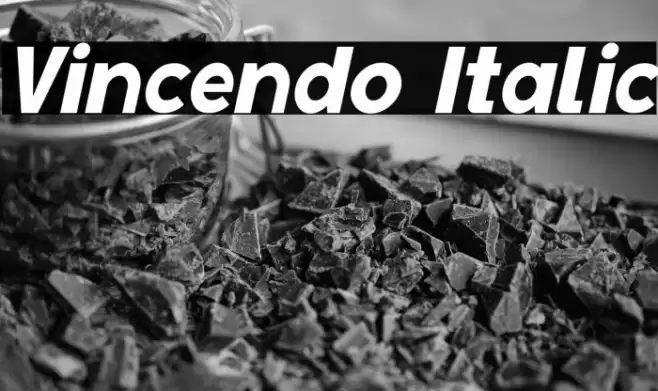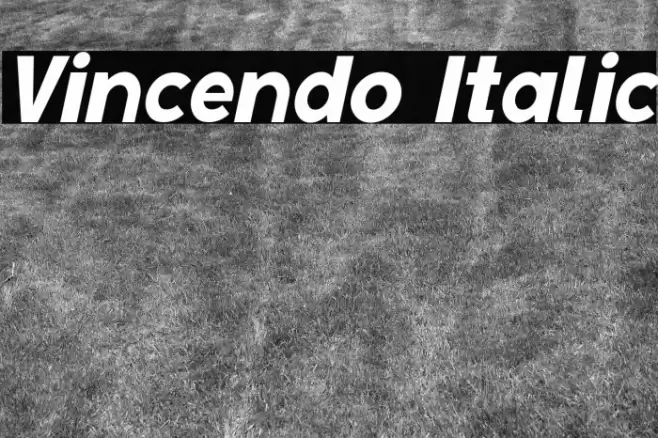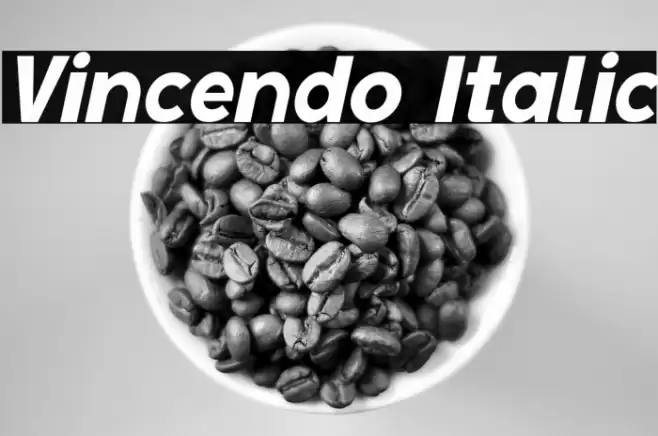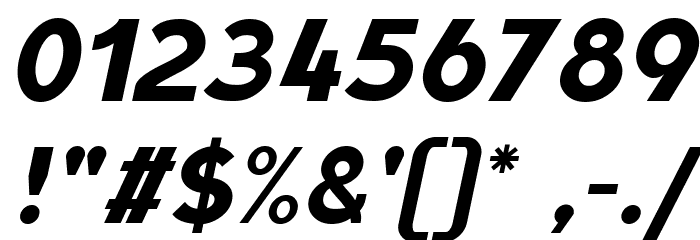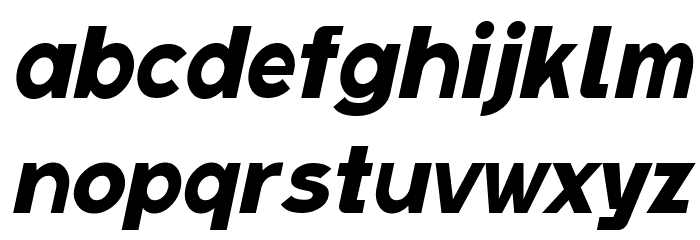
Vincendo Italic Font
Vincendo Italic Description
This font exhibits a dynamic and modern style with a pronounced italic slant, giving it a sense of motion and energy. The characters are bold and well-defined, with smooth curves and clean lines that enhance readability. The uppercase and lowercase letters maintain a consistent style, while the numerals are clear and distinct. Special characters are well-integrated, ensuring versatility in various design contexts. The overall appearance is sleek and contemporary, making it suitable for a wide range of applications.
A modern, bold italic font with smooth curves and a dynamic style from Uncategorized fonts.
- Proposed Projects: Ideal for branding, advertising, headlines, and digital media projects where a modern and energetic look is desired.
- Use Case: Headlines, Logos, Advertising